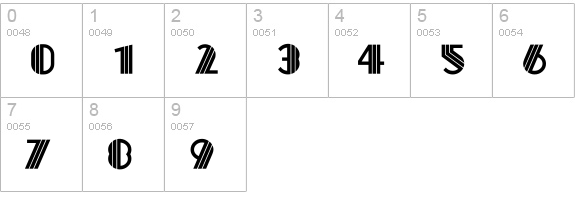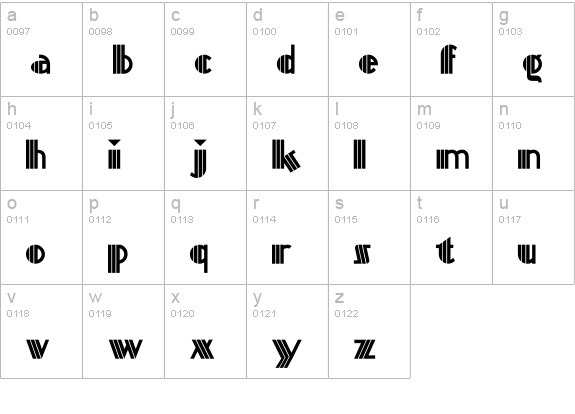
Titanick-Display Font Details
Introducing Titanick-Display, a visually stunning font that is guaranteed to make a bold statement in any design project. With its sleek and modern design, this font is perfect for logos, headlines, posters, and any other creative endeavor that requires a touch of elegance and sophistication. What sets Titanick-Display apart from other fonts is its impeccable attention to detail and its ability to capture attention effortlessly. Each letter is meticulously crafted, with clean lines and sharp angles that create a sense of power and strength. The curves are graceful and smooth, adding a touch of finesse to the overall design. But what truly sets Titanick-Display apart is the fact that it is absolutely free! That's right, this incredible font is freely available to download at FontsMarket.com. We believe that great design should be accessible to everyone, and with Titanick-Display, you can now elevate your projects without breaking the bank. Whether you're a professional designer or a creative enthusiast, Titanick-Display will take your designs to new heights. Its versatility allows it to be used in various settings, from digital designs to print materials. The legibility of this font ensures that your message will be delivered with clarity and impact. So why wait? Download Titanick-Display today from FontsMarket.com and unlock a world of design possibilities. Whether you're creating a logo for a new business or designing a brochure for a client, this font will undoubtedly be your go-to choice. Don't miss out on the opportunity to elevate your design game with this exceptional font. Get your hands on Titanick-Display and let your creativity soar!